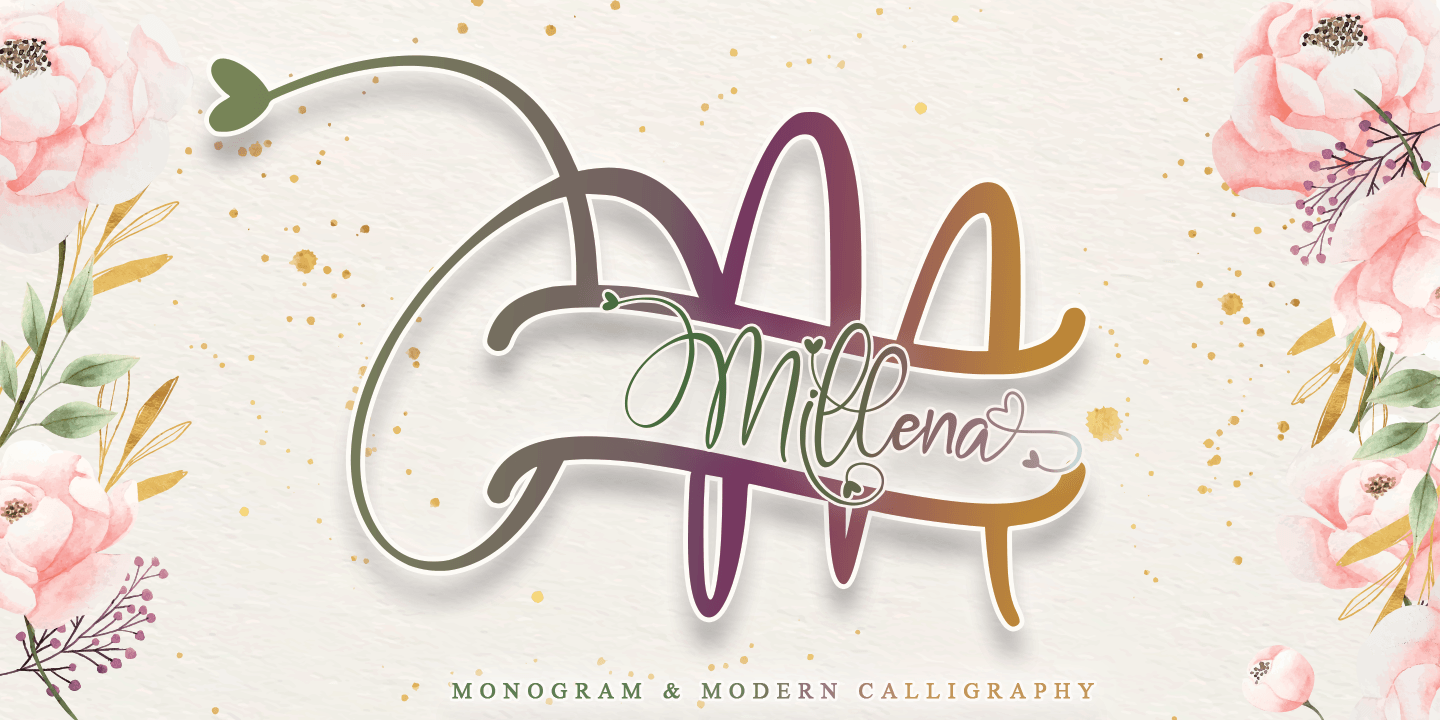
Millena Font Free Download is an elegant, modern calligraphy typeface that blends sophisticated curves with a delicate, handwritten feel. Featuring smooth strokes, stylish ligatures, and graceful letterforms, Millena Font is perfect for wedding invitations, logos, branding, social media posts, greeting cards, and product packaging. Its romantic and refined style makes it ideal for projects that aim to convey beauty, elegance, and warmth.
Whether you're creating luxury stationery, chic branding, or elegant marketing materials, Millena Font provides a sophisticated, artistic touch that elevates your designs. Its balance of beauty and readability ensures it looks stunning across both print and digital media.